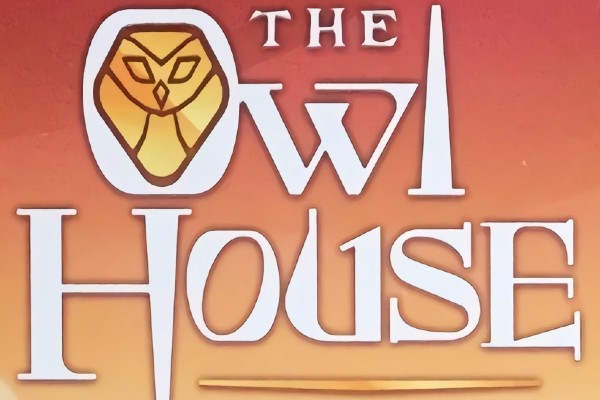
The Owl House is an spell-binding animated TV series that follows a teenage girl named Luz who stumbles into a magical realm called the Boiling Isles. Guided by a rebellious witch named Eda and her tiny warrior sidekick King, Luz aspires to become a witch herself despite lacking magical abilities. With a huge audience and loyal following, the show's atmosphere is a delightful mix of whimsy and darkness, capturing the essence of a fantastical world teeming with both wonder and peril.
The logo for The Owl House does a great job in showcasing this tv series mystical allure, featuring intricate, arcane-like lettering set against a moody, dark background. Its color scheme leans toward eerie purples and mysterious blacks, setting the tone for the series' magical adventures. It has a destinct halloween look and feel to it. This visual feast is replicated almost identically by a font called Foxcraft NF designed by font author Nick Curtis. With its range of glyphs and unique typeface, this font allows you to create graphics, images, and designs that are remarkably close to the show's original logo. It comes in a True Type Font (TTF) format, which means that it's fully compatible with almost all computer operating systems and graphics editing software. Whether you're a fan or a graphic designer looking to capture that The Owl House magic, this typeface serves as your creative wand. Click on the download link below to grab your own free copy of The Owl House font today.